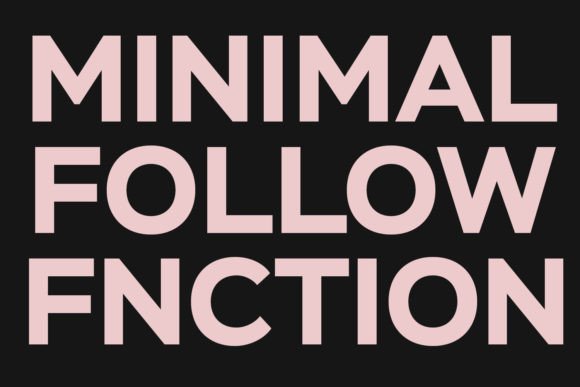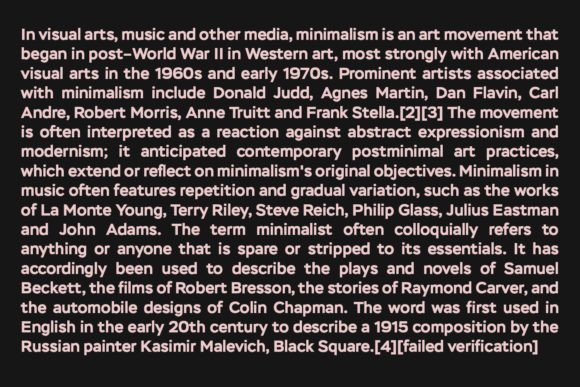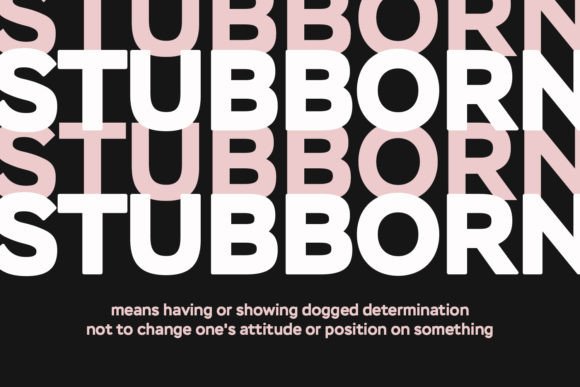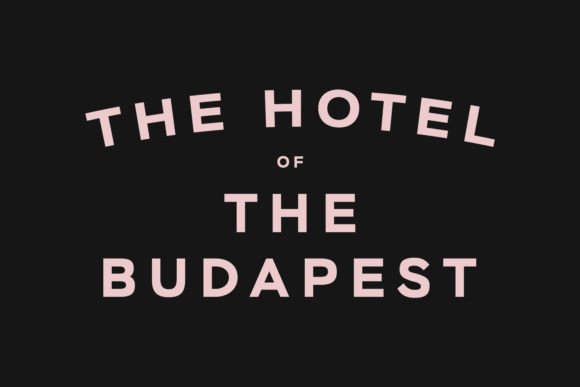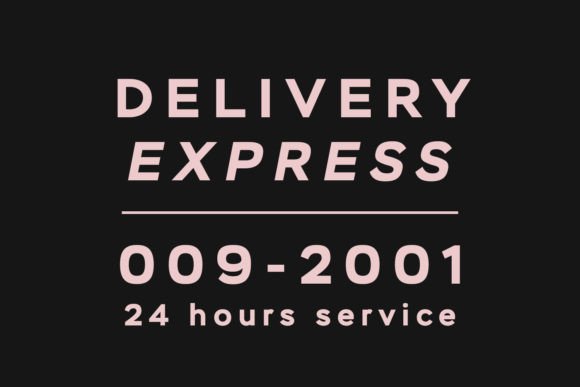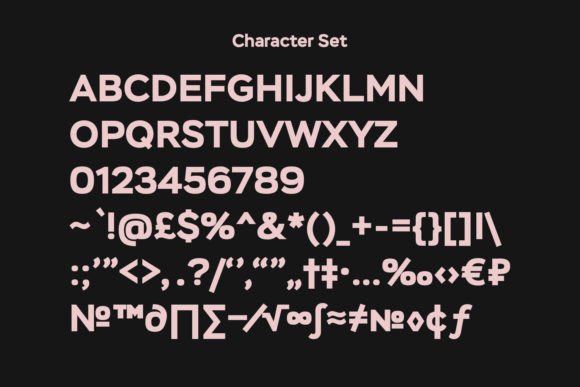
Introducing Coplette Font: The Ultimate Minimal Semi-Geometric Sans Serif
In the world of typography, finding the perfect font can be a daunting task, especially for designers and crafters looking for a unique and versatile typeface. Look no further than Coplette Font, a stunning minimal semi-geometric sans serif font that is perfect for a wide range of applications. From logo designs to social media posts, movie titles to book titles, and short text to long text, Coplette Font is the ideal choice for creating stunning work.
What Makes Coplette Font Special?
Coplette Font is a minimal semi-geometric sans serif font that boasts a clean and modern aesthetic. Its geometric lines and curves create a sophisticated look that is both elegant and simple. This font is perfect for designers and crafters who want to add a touch of minimalism to their work without sacrificing style. The semi-geometric design ensures that the font remains highly legible, making it suitable for both short and long text.
Use Cases for Coplette Font
Coplette Font is an incredibly versatile typeface that can be used in a variety of contexts. Here are some of the most popular use cases:
- Logo Designs: Coplette Font is perfect for creating modern and sleek logos that require a clean and minimalist aesthetic.
- Social Media Posts: Use Coplette Font to create eye-catching social media posts that stand out from the crowd.
- Movie Titles: Add a touch of sophistication to your movie titles with Coplette Font’s elegant design.
- Book Titles: Create stunning book titles that grab attention with Coplette Font’s unique semi-geometric design.
- Short Text and Long Text: Coplette Font is suitable for both short and long text, making it perfect for a wide range of applications.
Why Choose Coplette Font?
Coplette Font offers several benefits that make it an attractive choice for designers and crafters. Here are some of the key advantages:
- Highly Legible: Coplette Font’s semi-geometric design ensures that it remains highly legible, even at small sizes.
- Versatile: The font can be used in a wide range of applications, from logo designs to long text.
Tips for Using Coplette Font
Here are some tips for getting the most out of Coplette Font:
- Pair with Sans or Serif Fonts: Coplette Font works well with both sans and serif fonts, making it perfect for secondary text.
- Use for Headings and Titles: Coplette Font is perfect for headings and titles, where its elegant design can really shine.
Coplette Font is a stunning minimal semi-geometric sans serif font that is perfect for designers and crafters looking for a versatile and elegant typeface. With its clean design, high legibility, and PUA encoding, Coplette Font is the ideal choice for a wide range of applications. Whether you’re creating logo designs, social media posts, movie titles, or book titles, Coplette Font is sure to help you create stunning work.